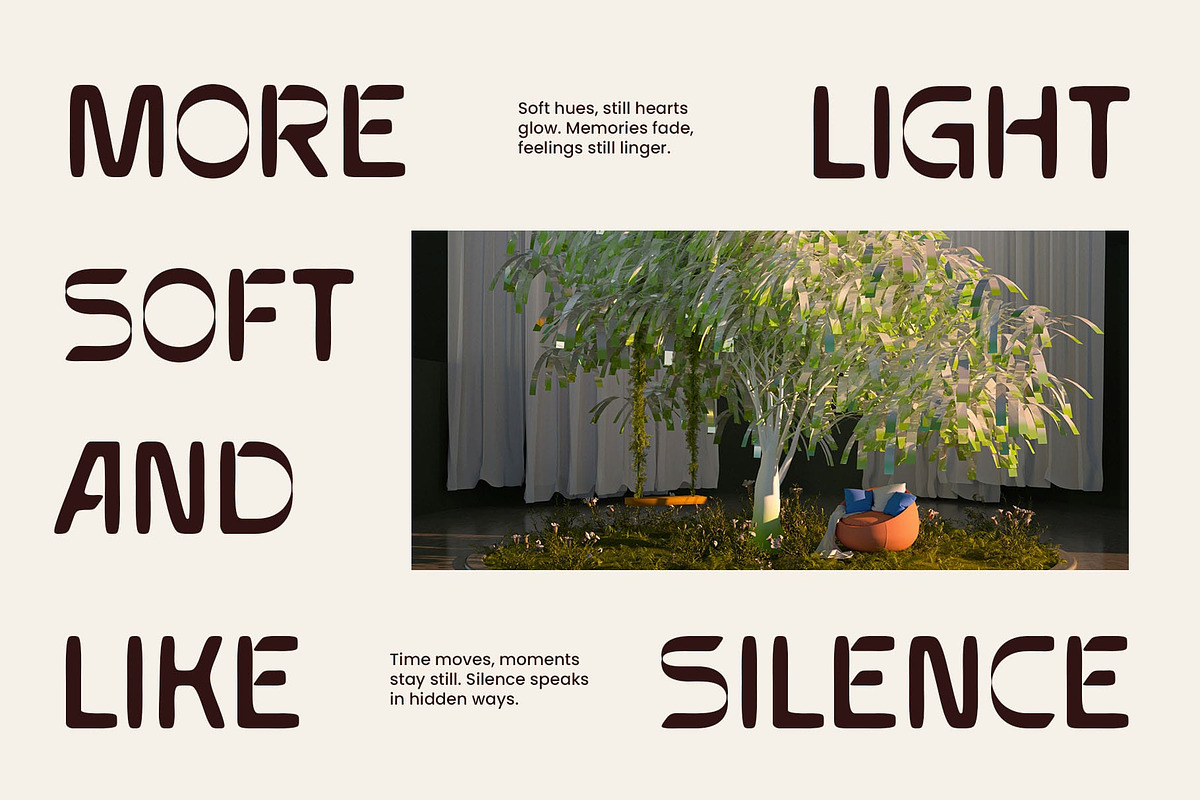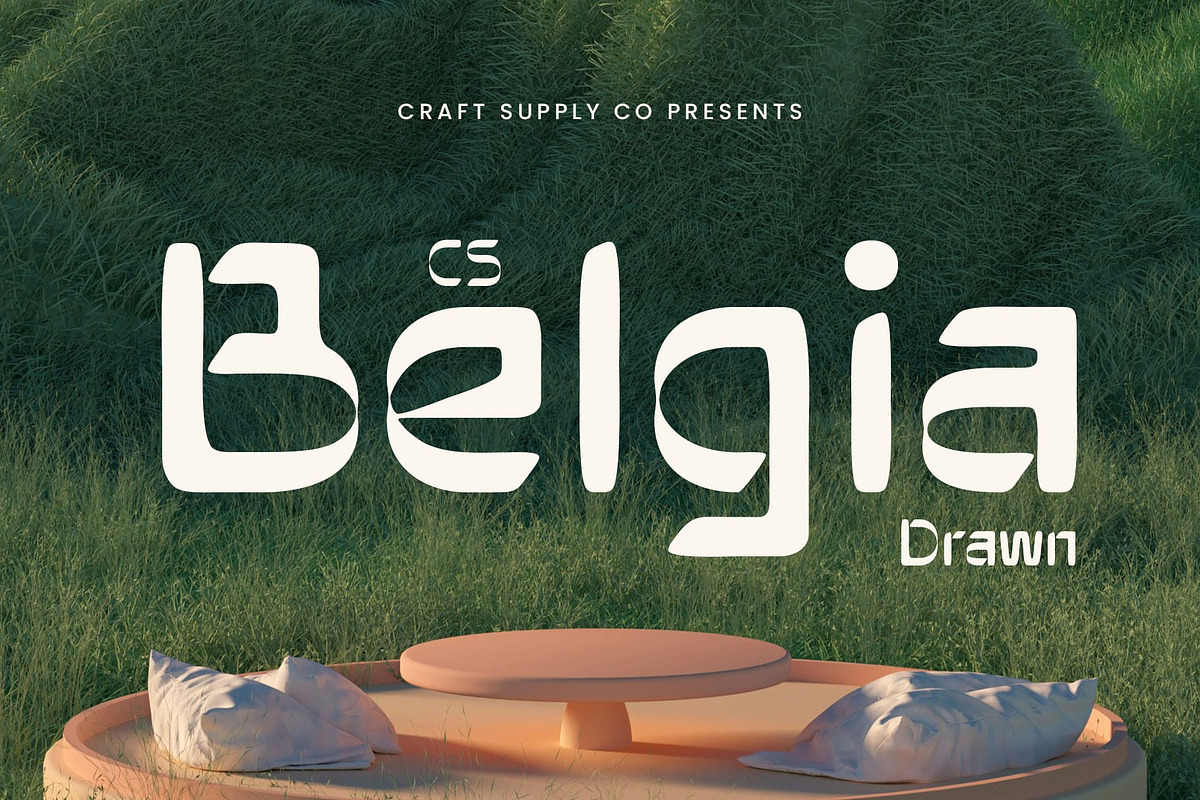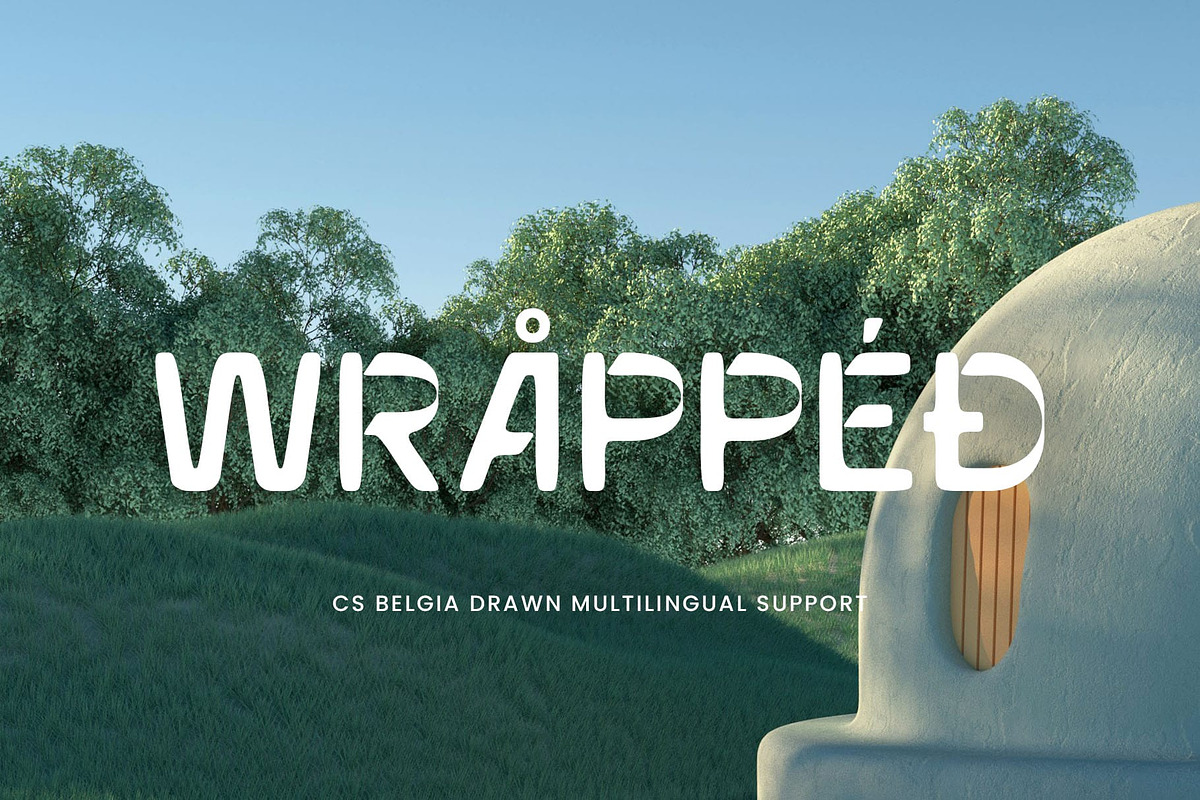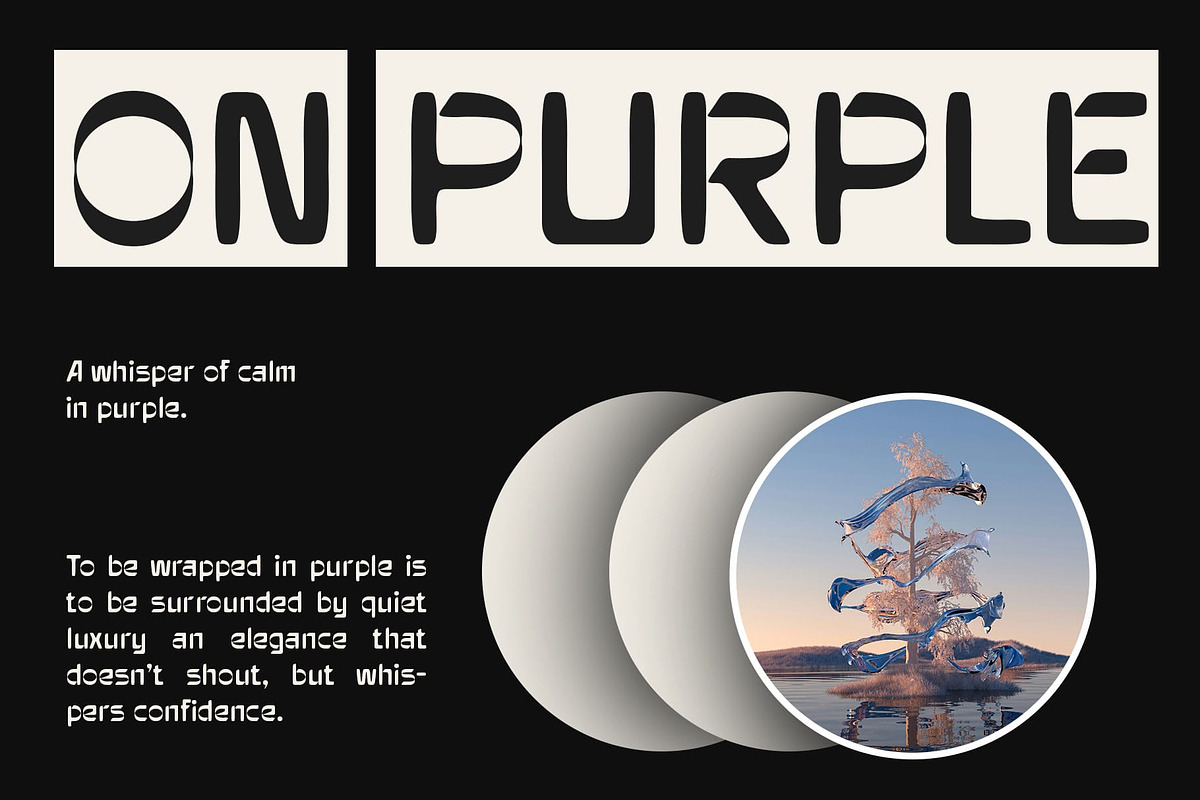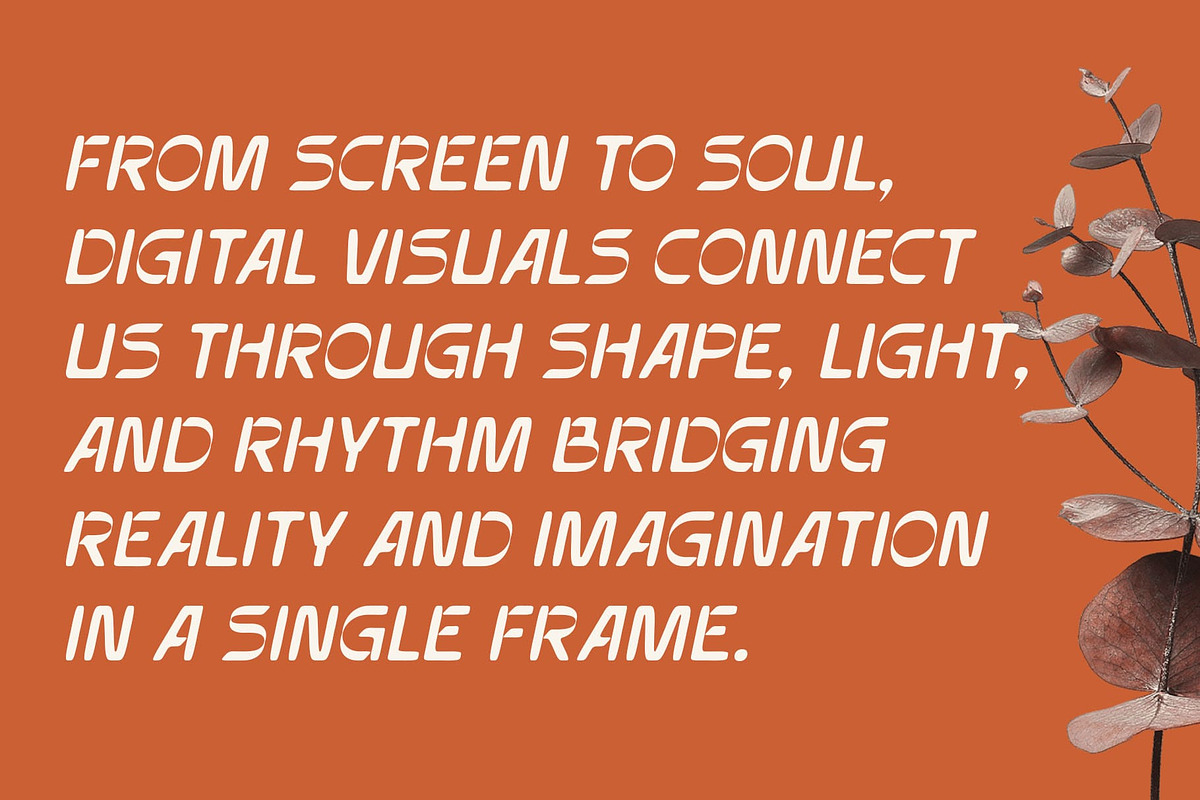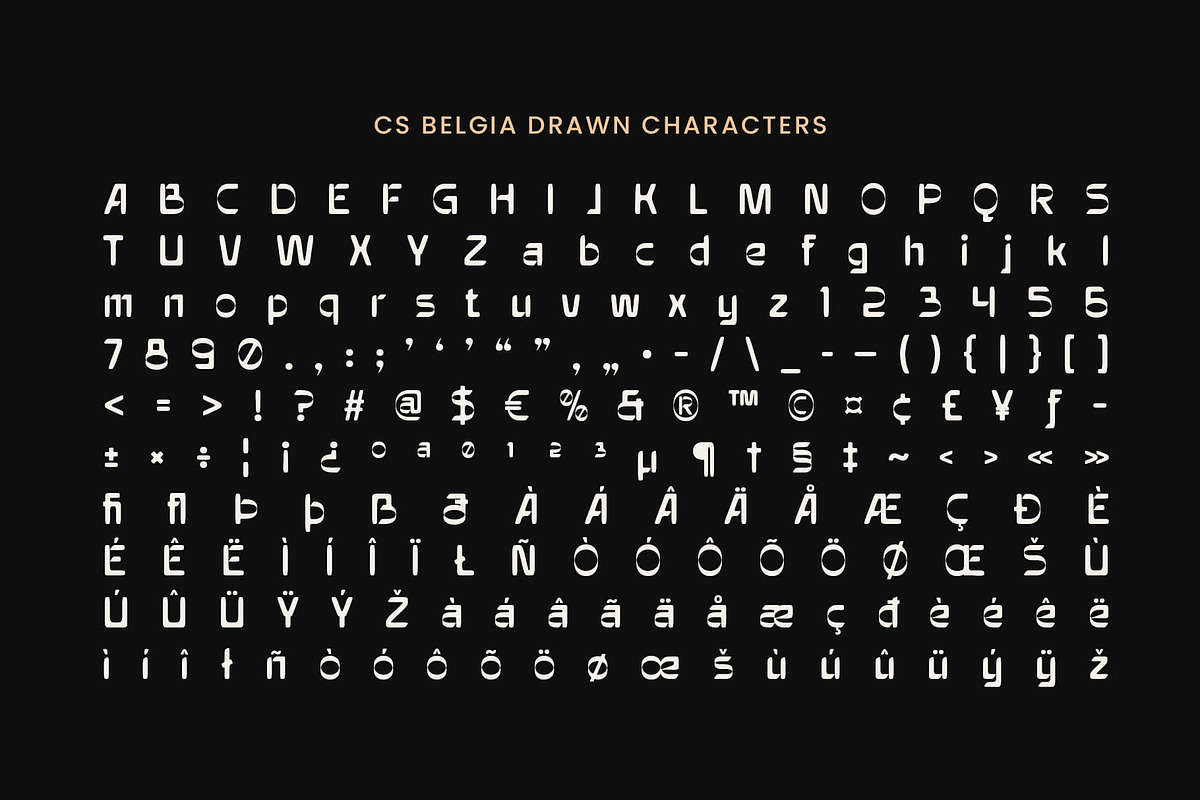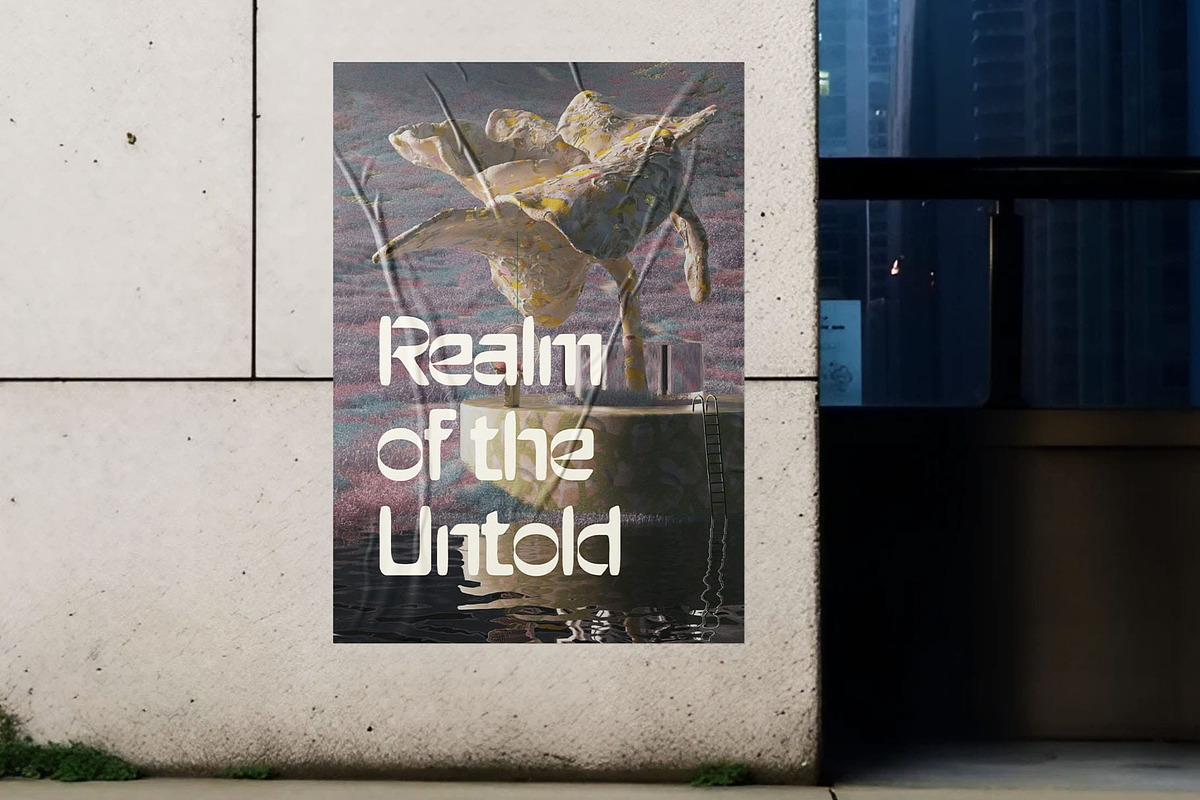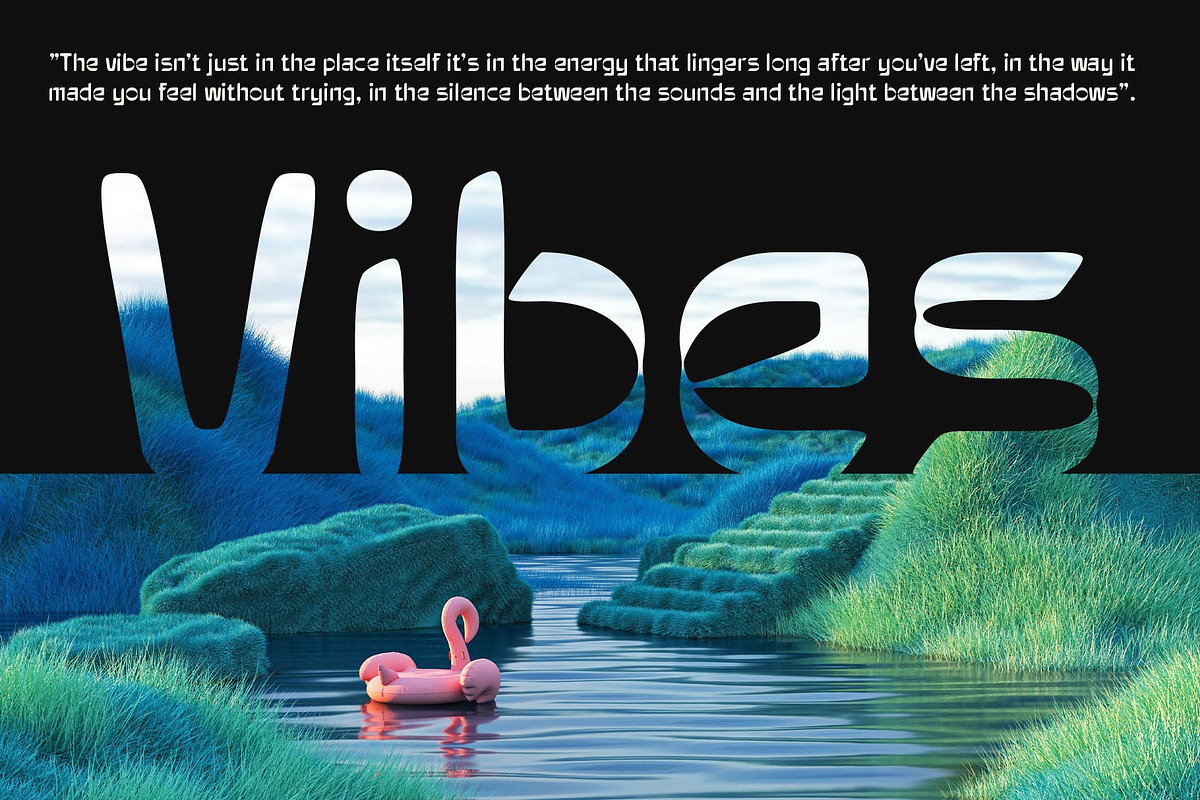
CS Belgia Drawn
CS Belgia Drawn: Artistic Display with Expressive Elegance
Contemporary Decorative Style This is a modern display font that blends elegant decorative forms with contemporary flair. Its refined letterforms feature stylish curves and unique detailing, giving it a fashionable yet timeless appearance perfect for upscale and creative design projects.
Drawn Texture for Artistic Character What makes this modern decorative font stand out is its distinctive hand-drawn texture. This artistic effect adds depth, personality, and a crafted feel to the font, transforming each letter into a visual statement. The textured finish brings warmth and creativity, making it ideal for expressive and high-impact visuals.
Ideal for Editorial and Branding Projects Whether you’re designing a fashion magazine, a creative brand identity, or eye-catching packaging, this modern drawn font delivers a striking and artistic presence. Its bold style paired with decorative finesse allows it to shine in headlines, logos, and visual content that needs to stand apart.
A Unique Fusion of Style and Emotion This drawn font captures the essence of modern elegance through a handcrafted lens. Its balance of decorative sophistication and raw texture makes it a versatile typeface for designers seeking a distinctive, emotional, and memorable typographic voice.